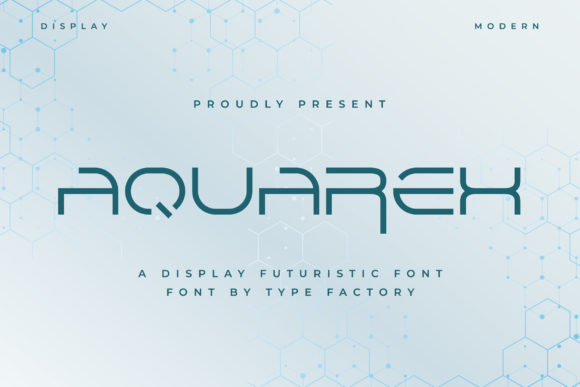
The Designer’s Delight: A Deep Dive into Aquarex Font
I’ll never forget the design project that led me to discover Aquarex Font. I was working on a futuristic branding campaign for a tech startup, and I was struggling to find the perfect font that would capture the essence of innovation and forward-thinking. That’s when I stumbled upon Aquarex, and it was love at first sight! ✨ The eclectic, abstract shapes and the cool, futuristic vibe instantly resonated with my design vision.
An Honest Review: What I Love and What I Don’t
The Good, the Great, and the Amazing
- ✨ Unique and futuristic design that adds a touch of sophistication to any project
- ✅ Highly versatile and adaptable to various design contexts
- 💡 Excellent for display text, headings, and titles
- 🎨 Supports OpenType features, glyphs, and stylistic alternates for added creative control
The Not-So-Perfect
While Aquarex is an amazing font, it’s not without its quirks. ⚠️ Here are a few things to keep in mind:
- 🤔 May not be the best choice for body text or long-form content due to its bold and futuristic design
- ⚠️ Some characters may appear slightly condensed, which can affect readability at smaller font sizes
The Designer’s Inspiration: A Brief Backstory
Aquarex was designed with the intention of capturing the essence of abstract shapes and futuristic design. Its creator aimed to craft a font that would be both eclectic and sophisticated, perfect for designers looking to add a touch of innovation to their projects.
Q: What type of projects is Aquarex best suited for?
A: Aquarex is ideal for display text, headings, and titles in futuristic, tech, and innovative projects.
Q: Can I use Aquarex for body text or long-form content?
A: While possible, Aquarex may not be the best choice for body text due to its bold and futuristic design. Consider using a more traditional font for better readability.
Q: Does Aquarex support OpenType features and glyphs?
A: Yes, Aquarex supports OpenType features, glyphs, and stylistic alternates, offering added creative control.